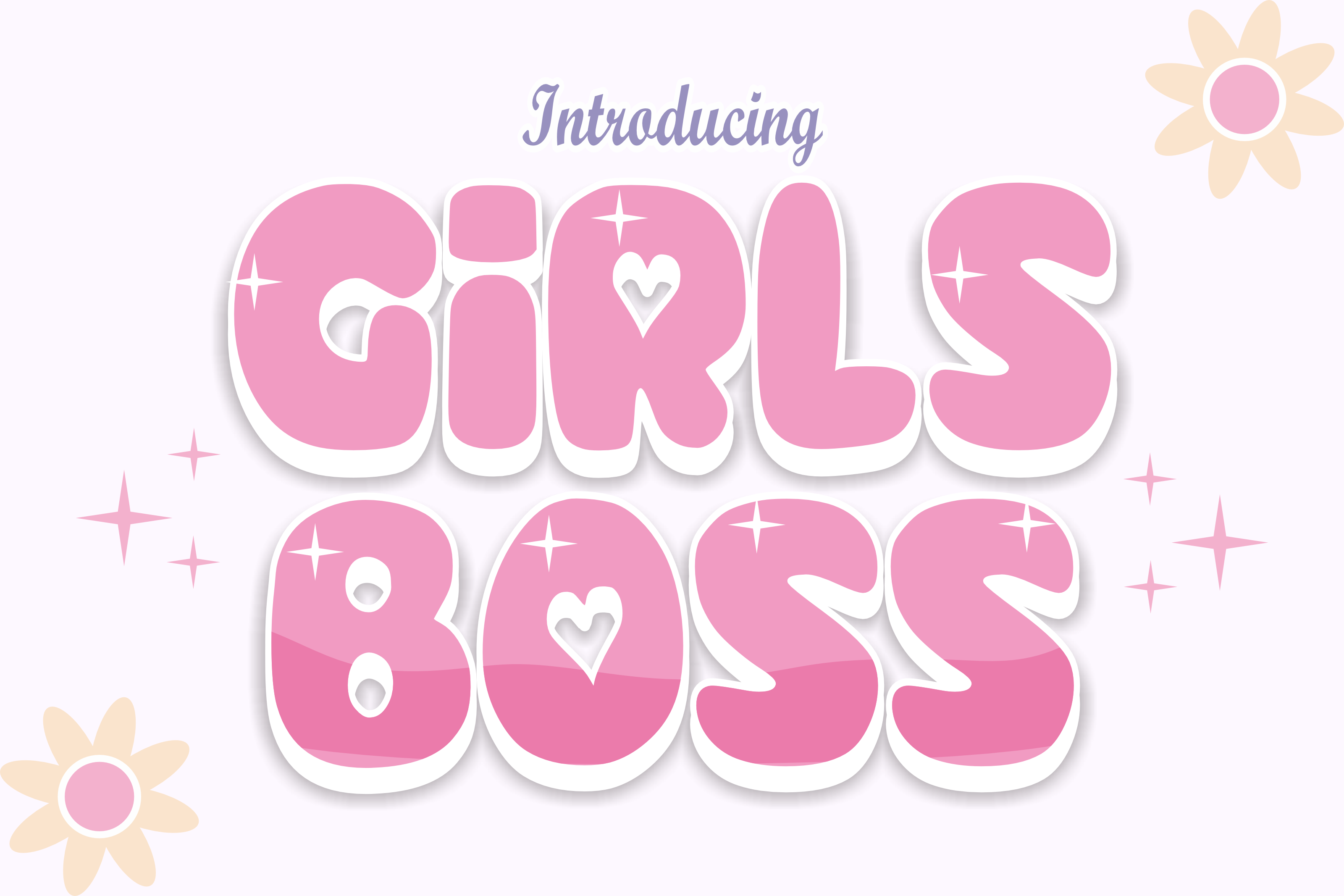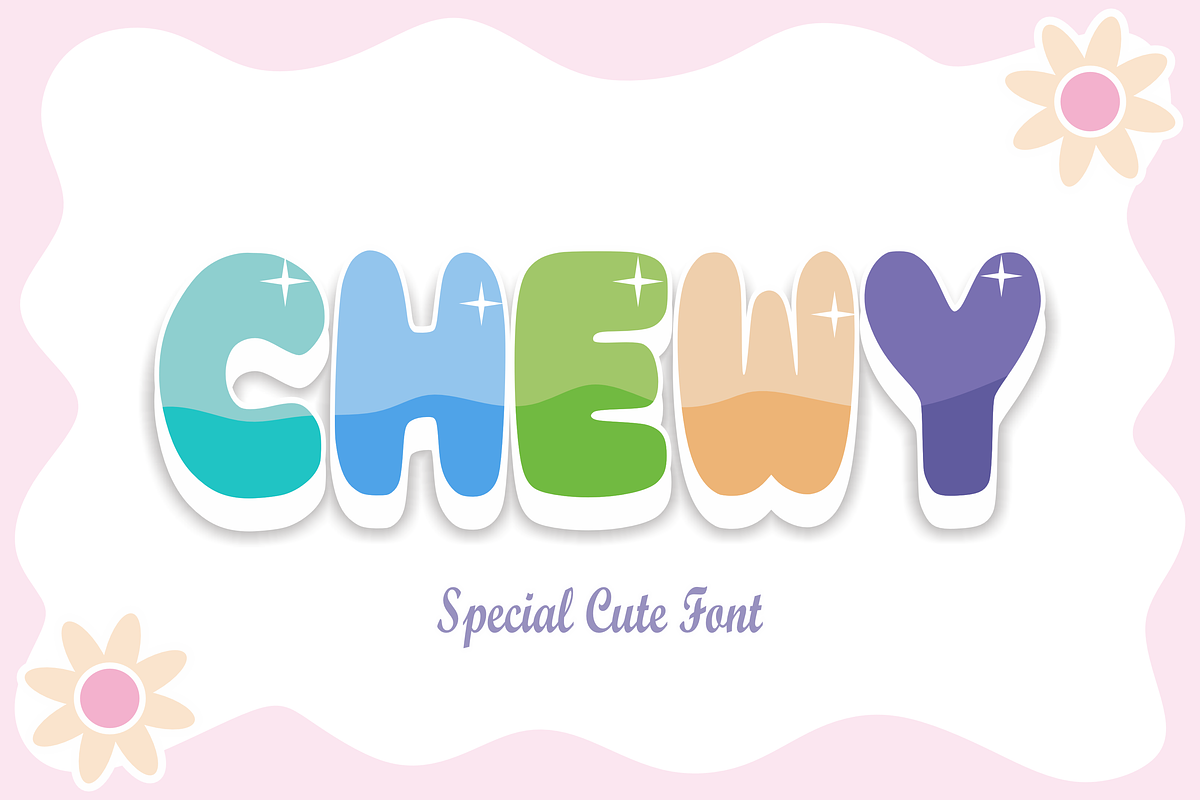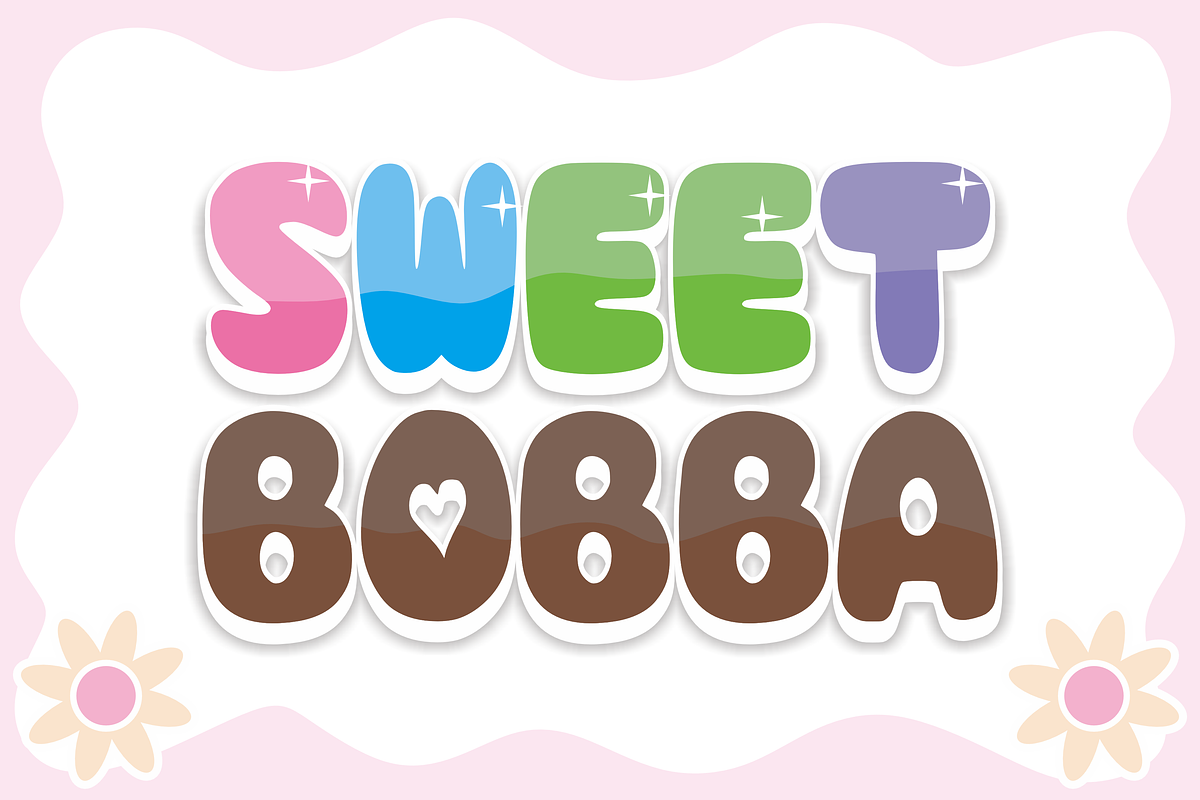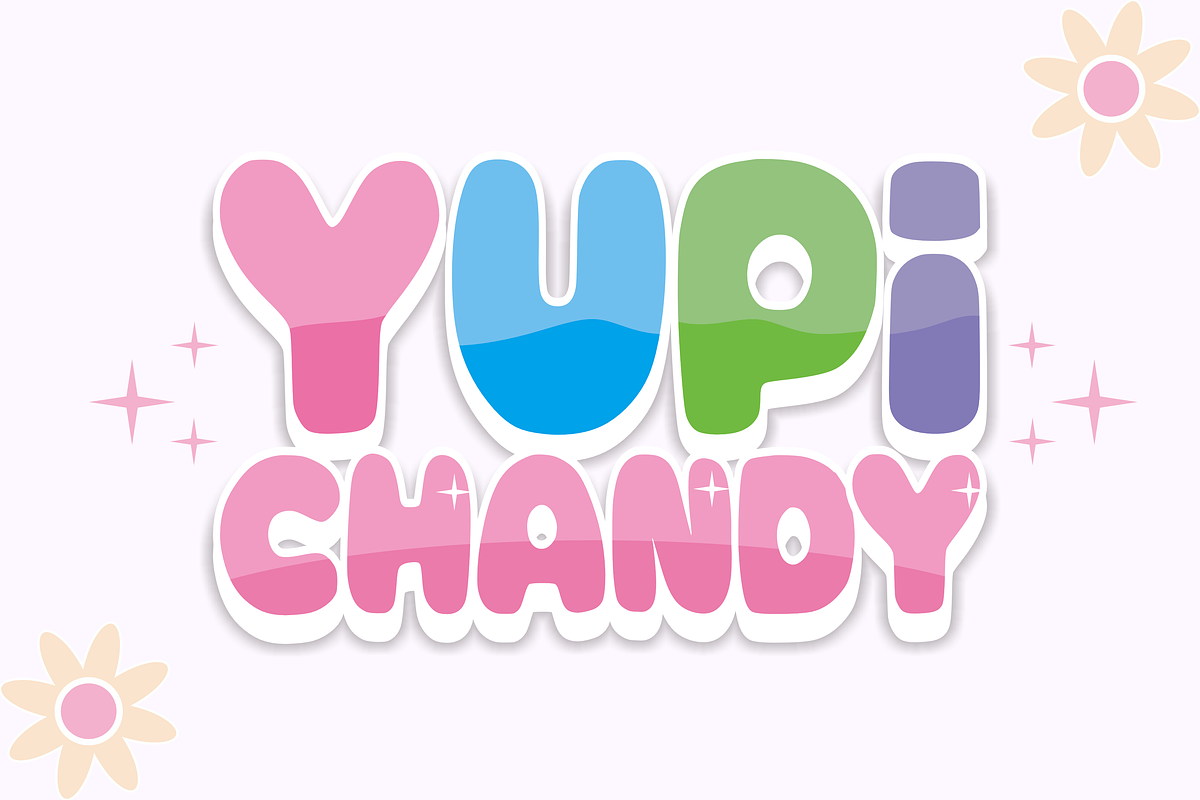
Girls Boss - Cartoon Font Types
Girls Boss is a fun and bubbly display font with bold, rounded letters. It has a playful and energetic style, perfect for designs that want to stand out and feel lively. Whether used in titles, posters, or creative projects, this font adds a cheerful and confident touch.